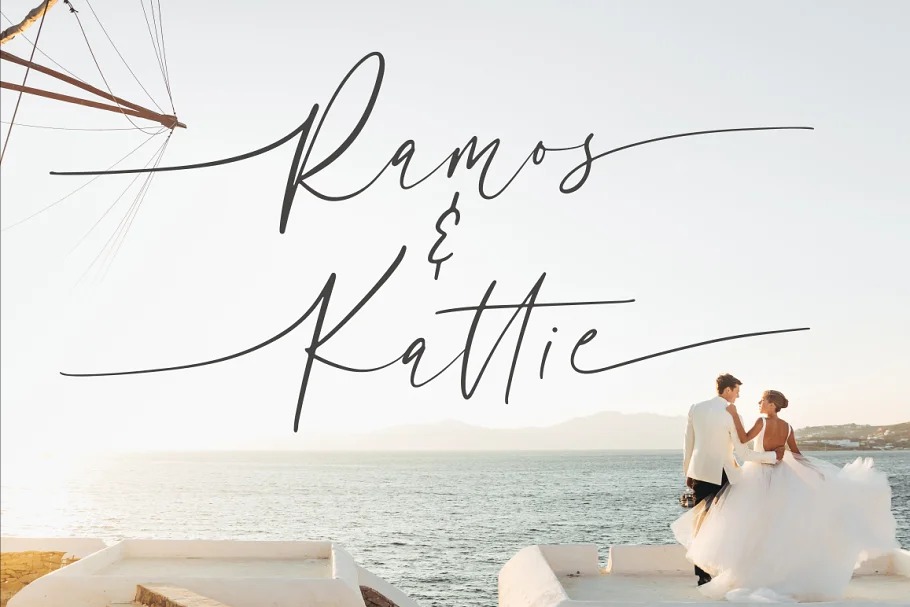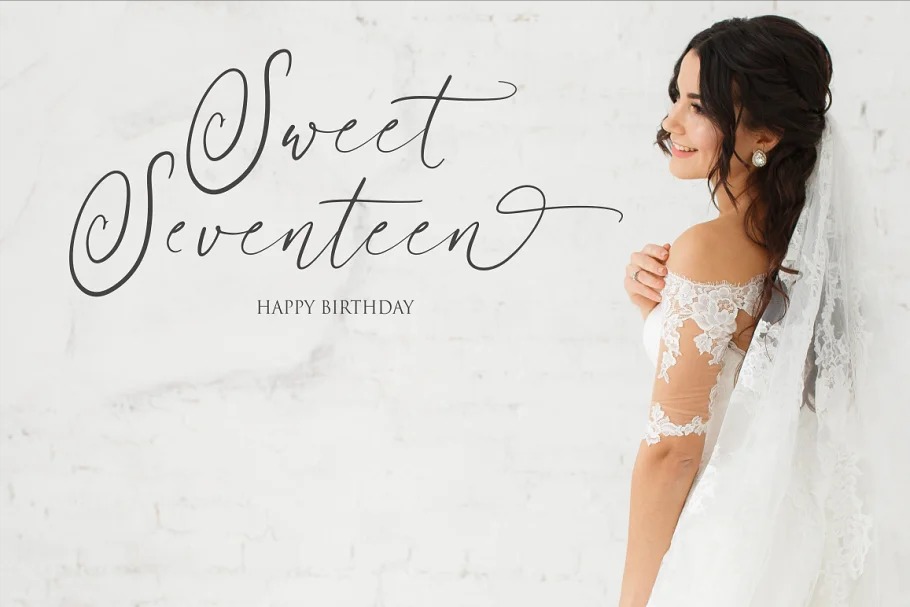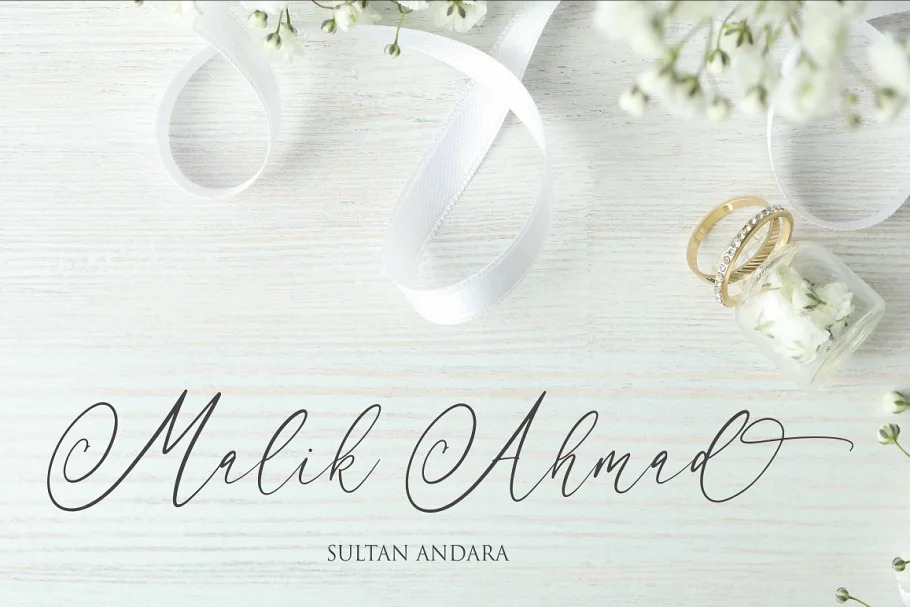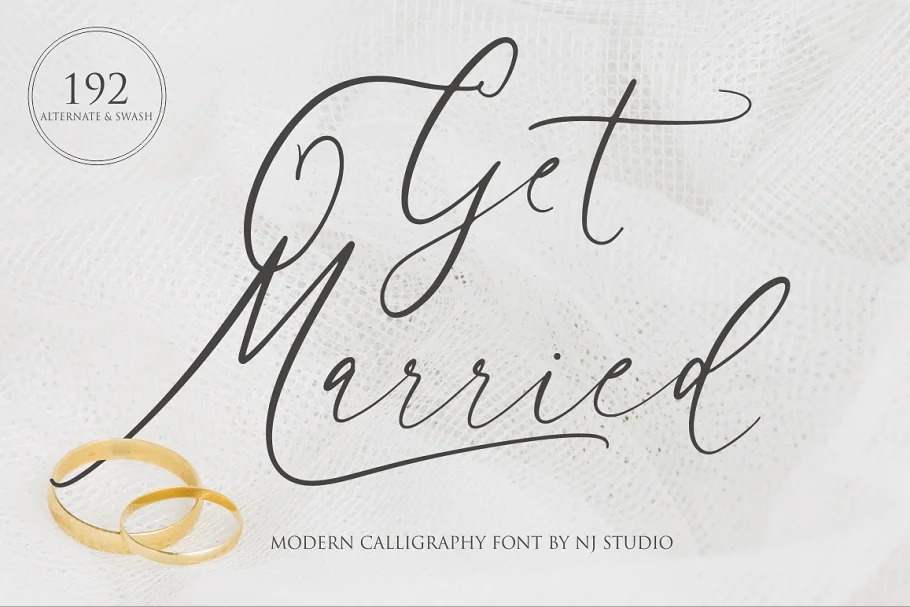
Get Married Font
Get Married Handwritten Font
This font is a modern handwritten script, it has a strong and casual style in every character, it will give a luxurious and modern impression in every design. It features ligatures characters that will take your projects to the next level!
This font is PUA code which means you can easily access all the glyphs that are full of natural! It also features many special features including glyphs. font designs that are made for various vector designs, printing such as digital wedding blogs, online shops, social media, while printing can be used in the field of product clothing, accessories, bags, pins, logos, business cards, watermarks and many others …